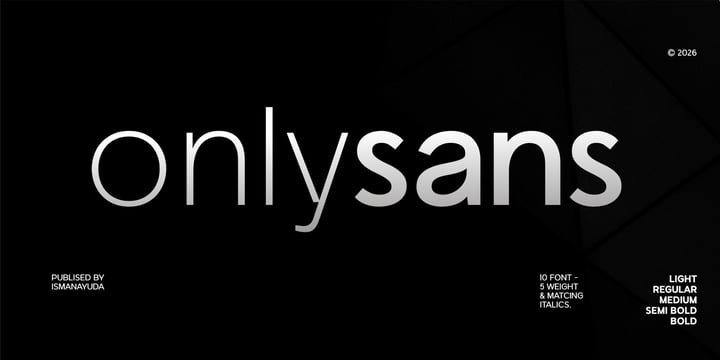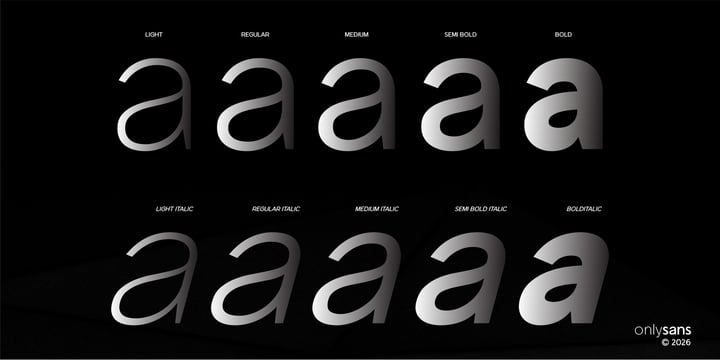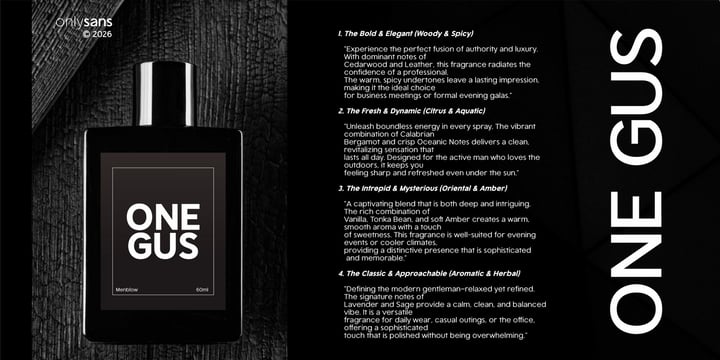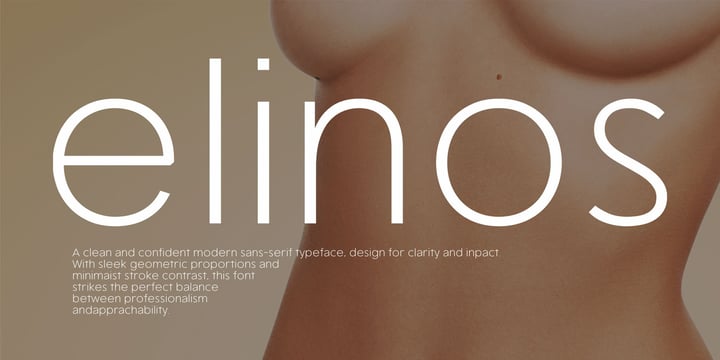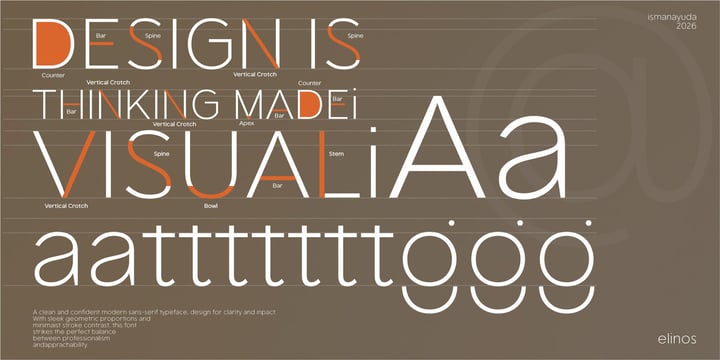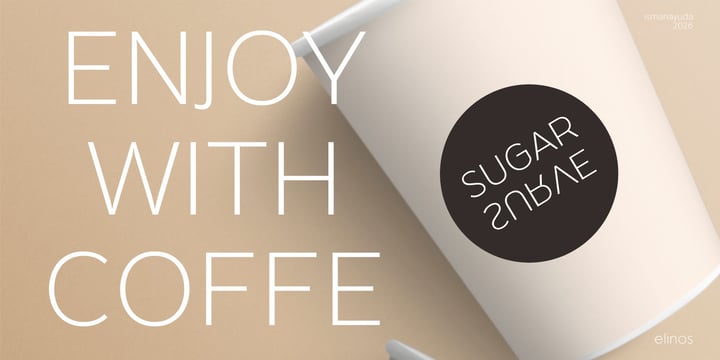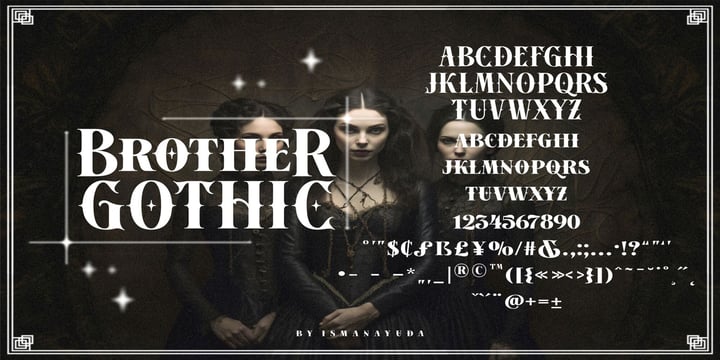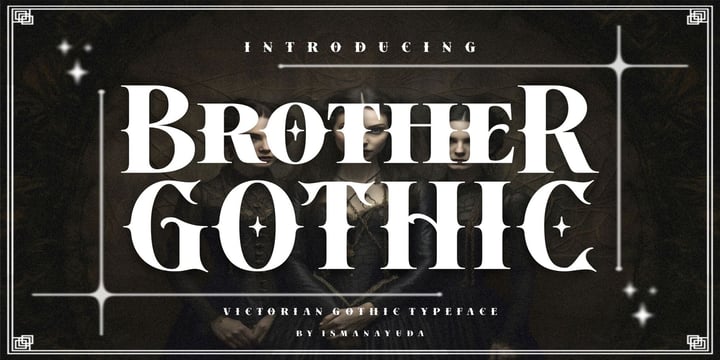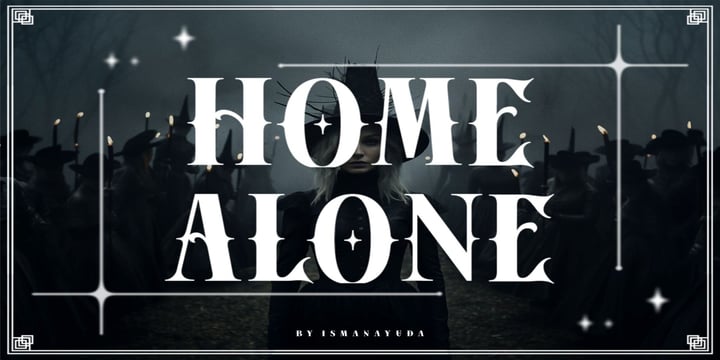
Ismana Yuda
Ismanayuda is an elite typography designer and graphic artist based in the creative hub of Bandung, Indonesia. Specializing in high-impact display typography, he has built an internationally recognized portfolio that bridges historical majesty with contemporary edge. He is best known for creating visually dominant, ornate typefaces that seamlessly fuse intricate Victorian flourishes, gothic blackletter, and gritty subculture aesthetics.
With a signature style defined by meticulously crafted swashes, custom engraved textures, and raw thematic energy, Ismanayuda’s fonts are engineered to serve as standalone centerpieces for global brands. His digital assets are highly sought after across premium design marketplaces like Creative Market and Creative Fabrica, trusted by designers worldwide to elevate streetwear apparel, heavy metal merchandise, luxury packaging, and custom logotypes. Driven by a passion for visual storytelling through letterforms, Ismanayuda continues to push the boundaries of expressive, marketable typography.
Creative Hub Roots: Explicitly stating roots in Bandung, Indonesia positions the brand inside a world-famous creative district known globally for producing top-tier streetwear apparel, independent music merchandise, and cutting-edge graphic design.